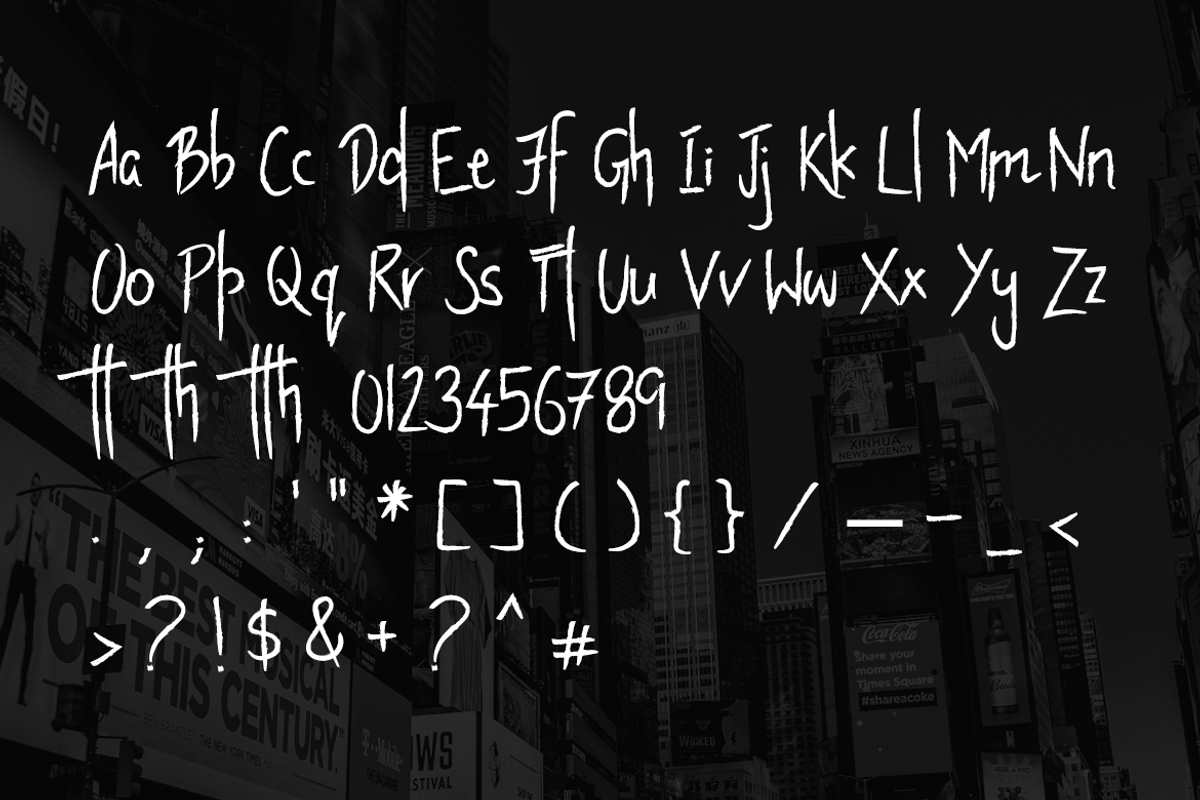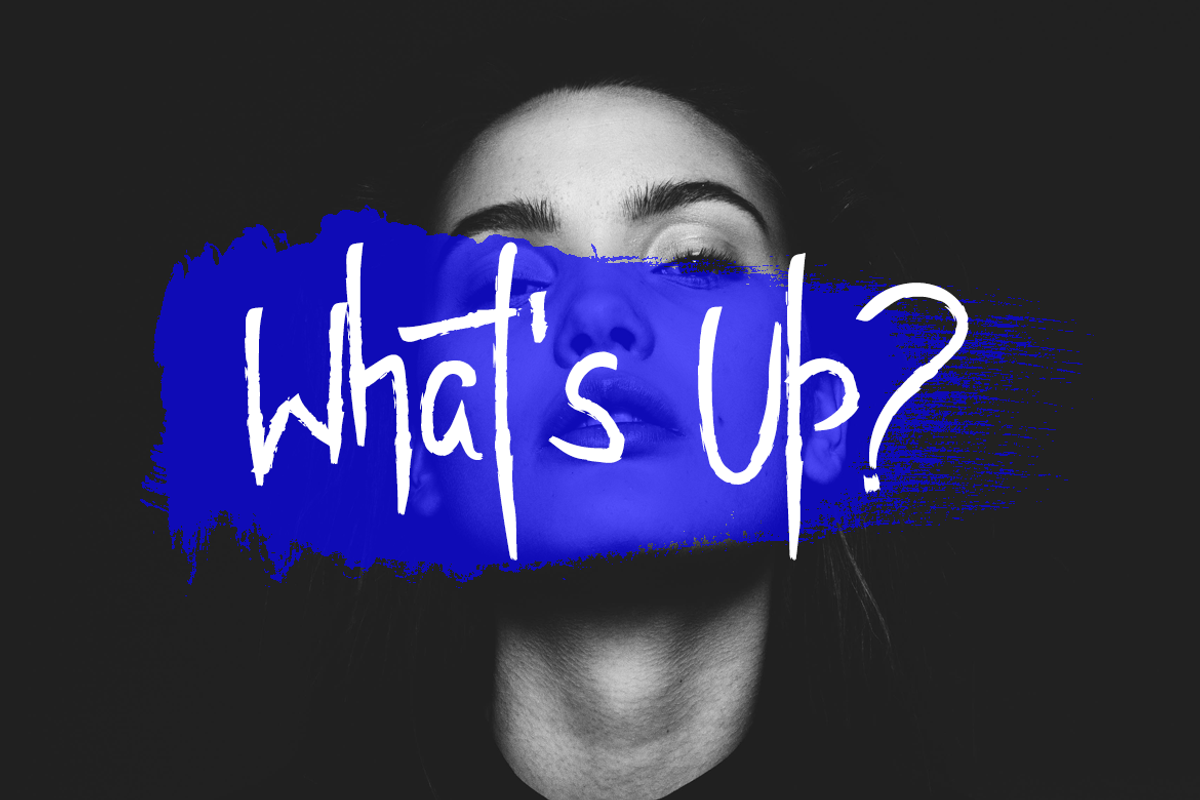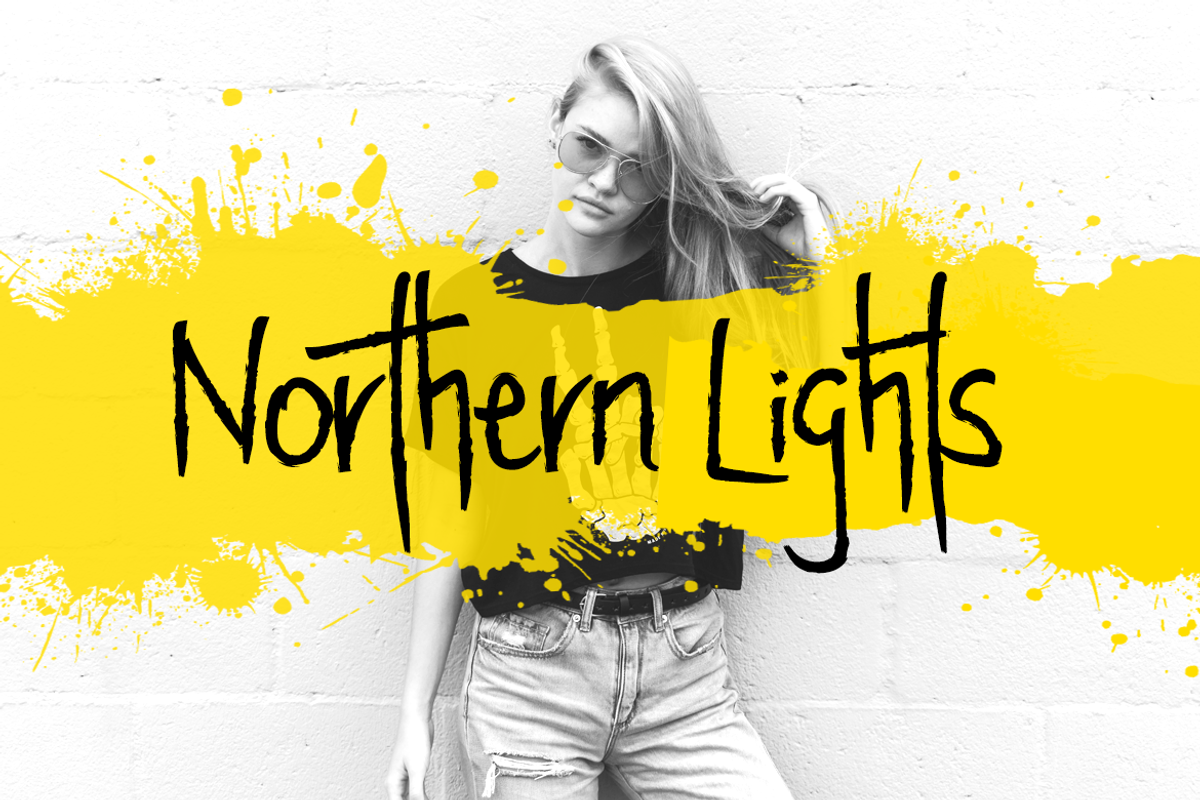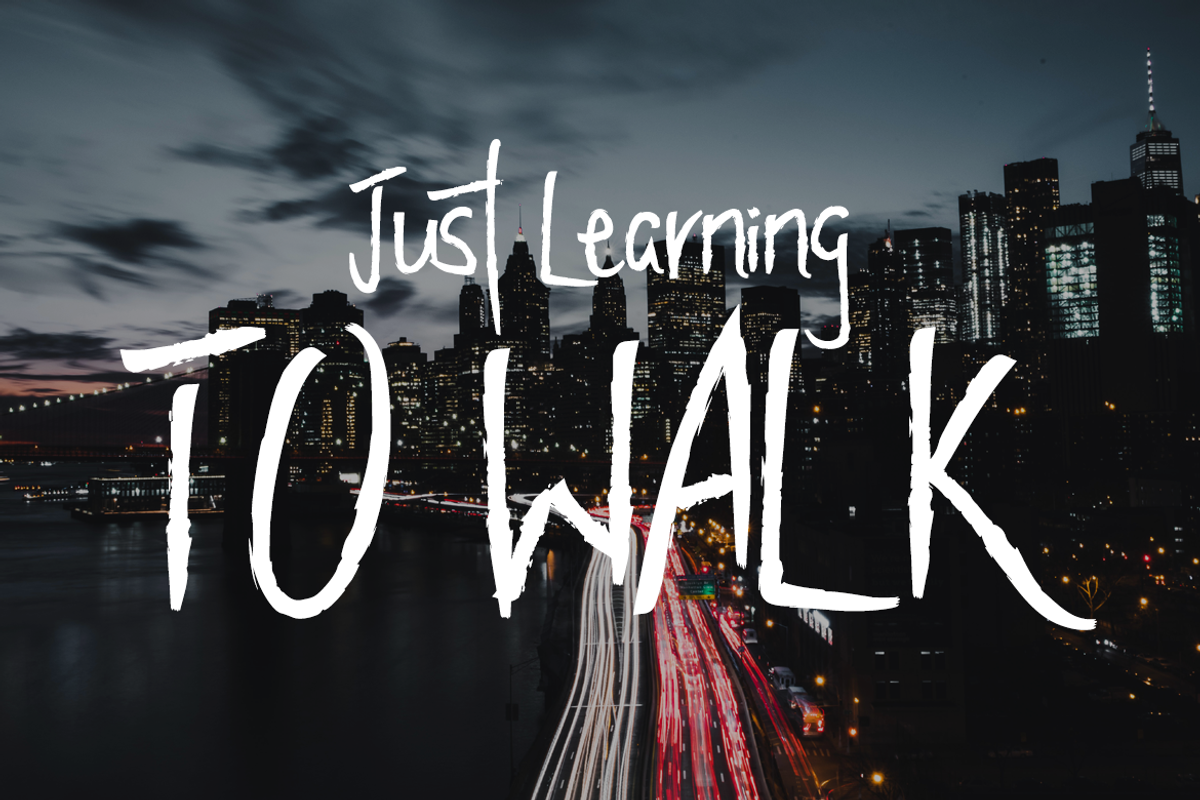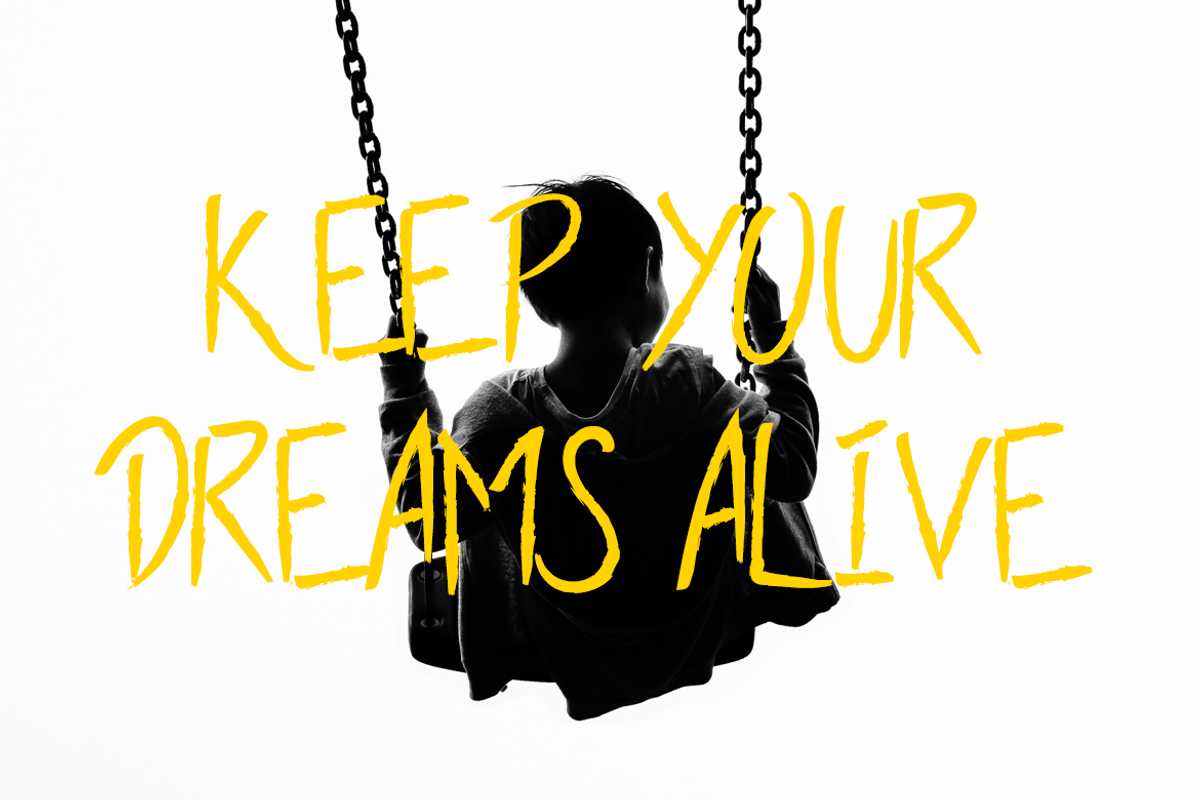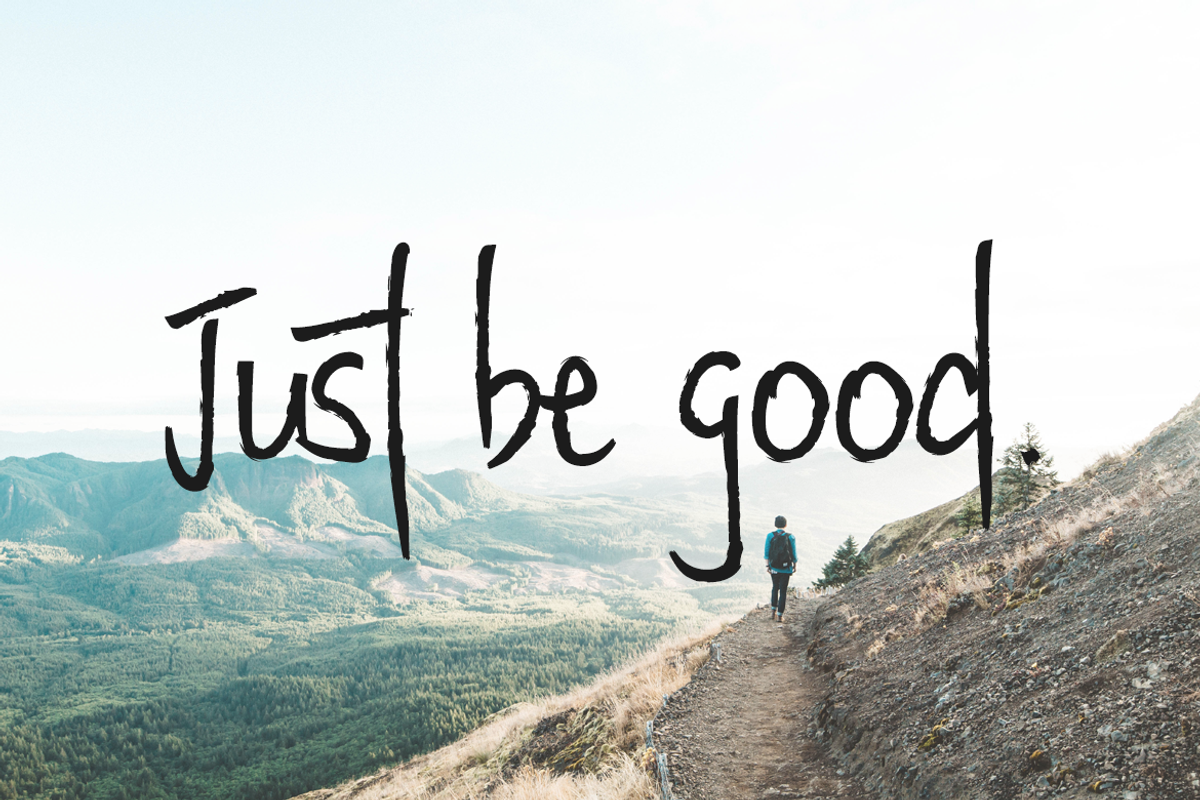
Rotterdam - Handwritten Display Font
Rotterdam - a unique handwritten font dedicated for display / branding / logo type / billboards / posters / meme and social media design purposes. Rotterdam is made with a custom brush inspired from urban graffiti.
This single weight font is best for creating outstanding graphics, meme, instagram posts, promotional content and marketing graphics that can really grab attention from your visitors. Please see the examples shown above to get an idea about the capability of this typeface.
Advanced Kerning & Essential Ligatures:
We have performed advanced, in-depth kerning to make sure the font looks amazing on all possible letter combinations. Also includes some essential ligatures shown in the preview